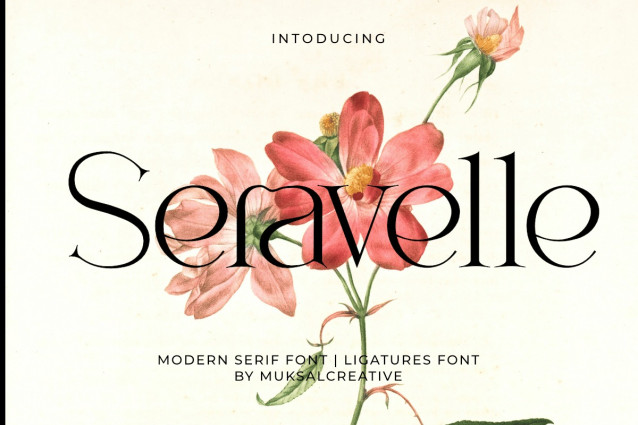
Seravelle Font is a modern and elegant serif typeface designed with refined details and high-contrast strokes. With its clean structure and graceful curves, this typeface offers a sophisticated and timeless look that enhances any design project. Seravelle is perfect for branding, editorial layouts, packaging, wedding stationery, and high-end digital design. Seravelle includes uppercase and lowercase letters, numbers, and punctuation marks, as well as full multilingual support, making it versatile for print and digital applications.